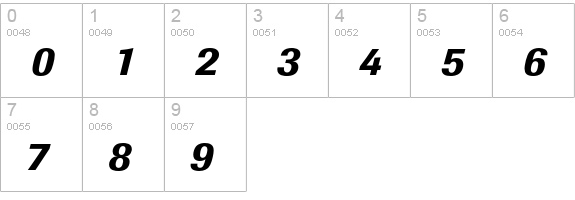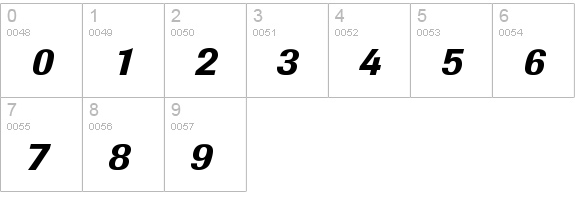
Berthold Imago Medium Italic Font Details
Berthold Imago Medium Italic is a balanced, medium-weight, italic variant in the Berthold typeface family \xE2\x80\x94 well suited to sub-headlines, navigation, and balanced editorial work.
Berthold Imago Medium Italic is a beautifully crafted font that exudes elegance and sophistication. With its stylish and flowing design, it adds a touch of class to any project or presentation. The medium weight of this font strikes the perfect balance between boldness and subtlety, making it suitable for a wide range of applications. This font features a unique italic style that adds a touch of flair and personality to your text. The slanted letters create a sense of movement and dynamism, making your words come alive on the page. Whether you're designing a logo, creating a poster, or writing a captivating headline, Berthold Imago Medium Italic is the perfect choice to make your text stand out. One of the best things about Berthold Imago Medium Italic is that it is freely available to download at FontsMarket.com. You can easily access this font and unleash your creativity without any cost or restrictions. Its availability allows you to use it in personal or commercial projects, making it a valuable resource for designers, writers, and content creators alike. The clarity and legibility of Berthold Imago Medium Italic make it suitable for a wide range of applications, including print and digital media. Its versatility ensures that your text remains readable and engaging, whether it's displayed on a billboard or viewed on a smartphone screen. The well-defined letterforms and balanced proportions make it a reliable choice for any project. Berthold Imago Medium Italic is a font that combines timeless elegance with modern functionality. Its graceful curves and subtle details make it visually appealing, while its readability and versatility ensure that your message is effectively communicated. Whether you're creating a website, designing a magazine layout, or crafting a social media post, this font is sure to elevate your design to new heights. Download Berthold Imago Medium Italic today from FontsMarket.com and unlock the possibilities of this stunning font. With its free availability, you have the freedom to explore and experiment with this font in your projects without any limitations. Let Berthold Imago Medium Italic be your creative companion and bring your ideas to life with style and sophistication.